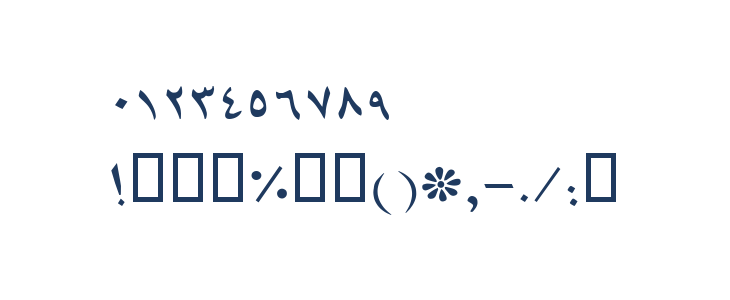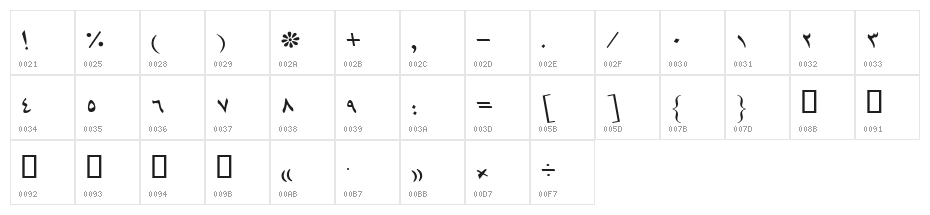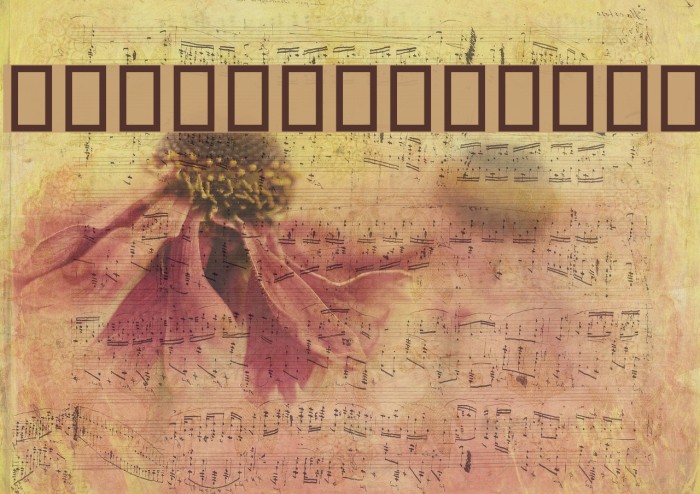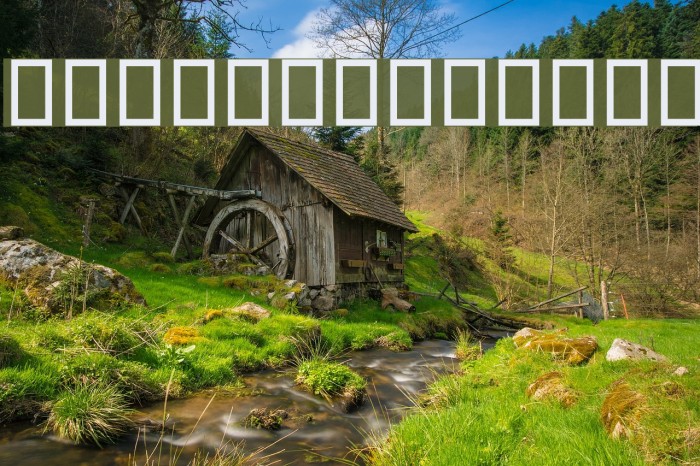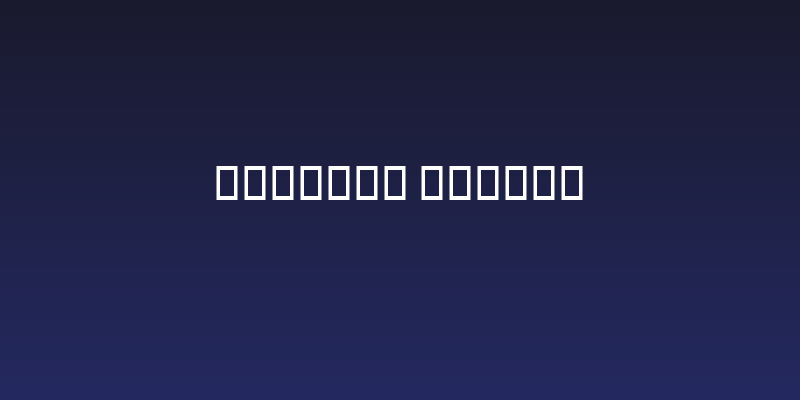
Mashhad Italic Font
Mashhad Italic Description
This font features a distinct italic style with a flowing, cursive appearance. The characters exhibit a smooth, continuous stroke that gives a sense of elegance and fluidity. The numerals are particularly stylized, with a unique flair that adds character to the overall design. The special characters maintain the same flowing aesthetic, ensuring consistency across all glyphs. This font is well-suited for projects that require a touch of sophistication and artistic expression.
Overall StyleElegant
Use CaseLogos, Invitations, Artistic projects
Proposed ProjectsIdeal for wedding invitations, elegant branding, artistic posters, and any project requiring a sophisticated touch.